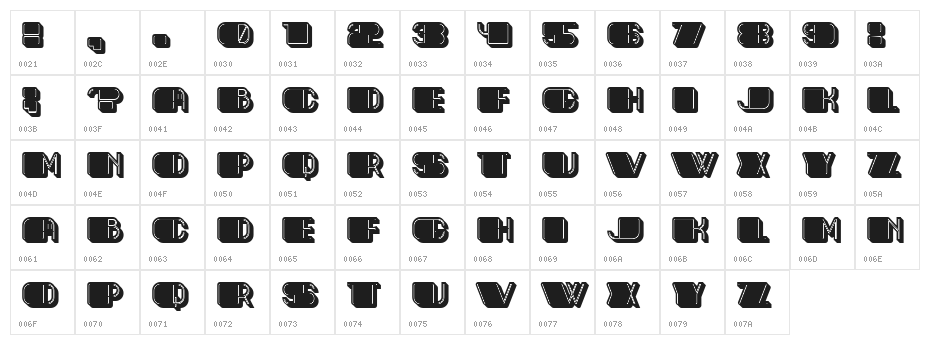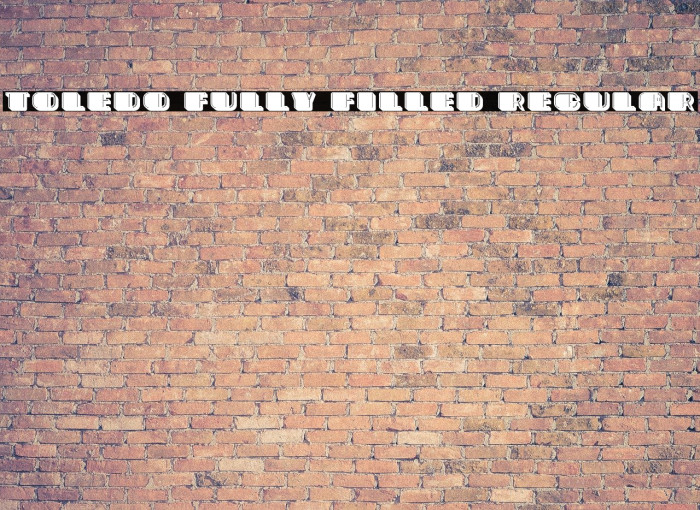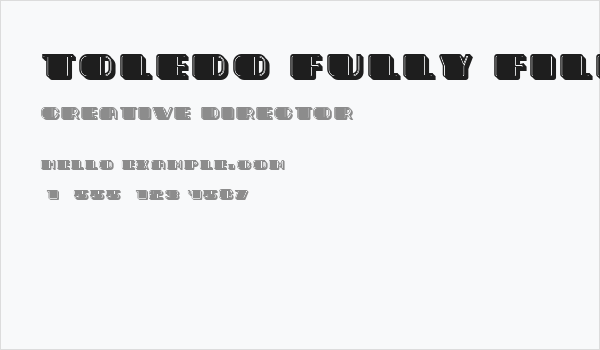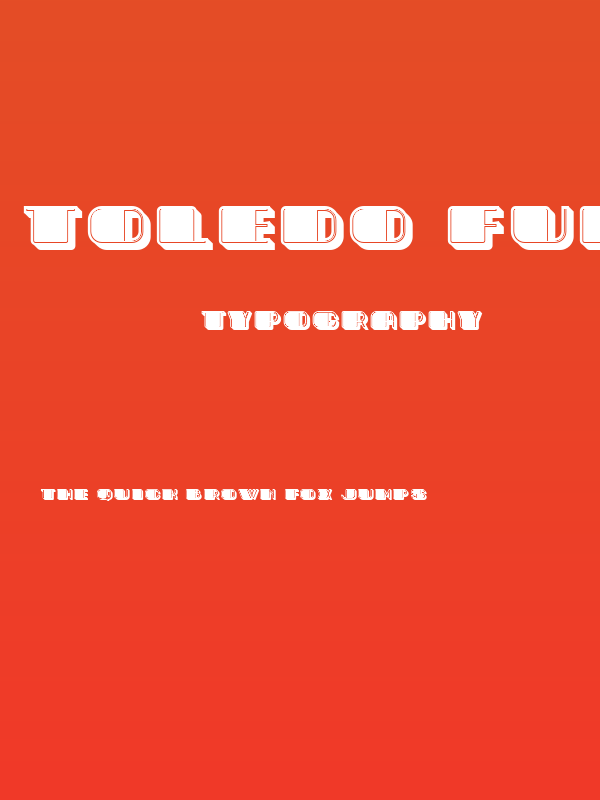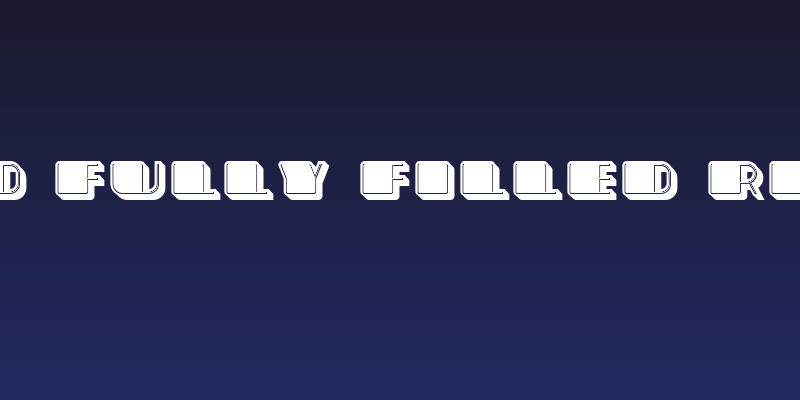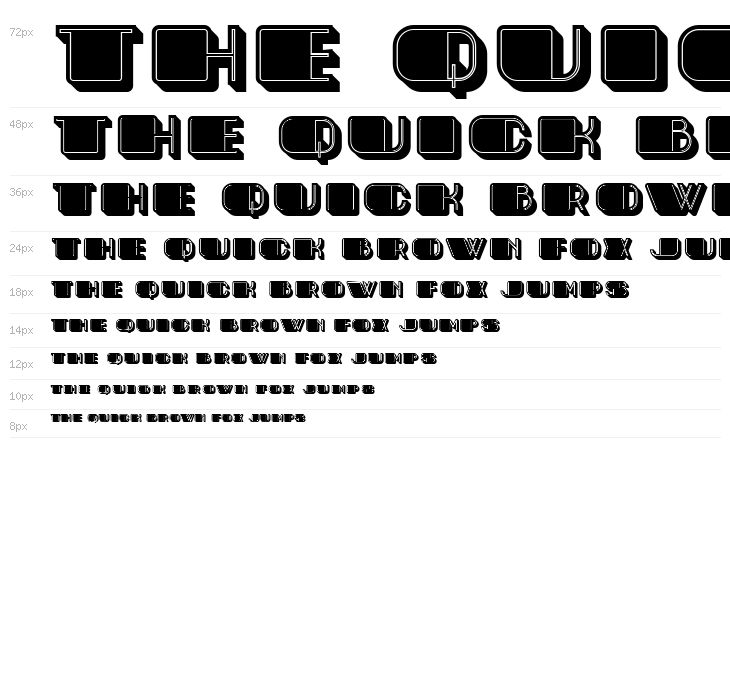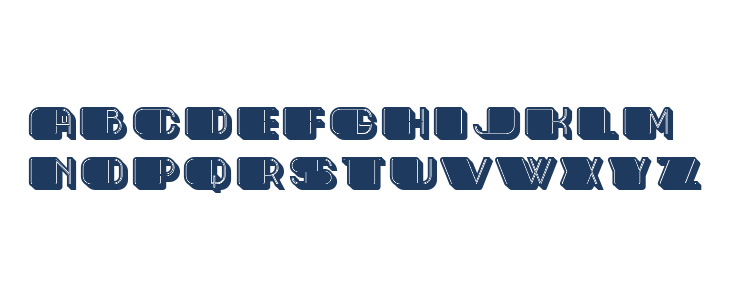
Toledo Fully Filled Regular Font
Toledo Fully Filled Regular Description
This font features a bold, geometric style with fully filled characters that have a distinct, blocky appearance. The letters are uniformly thick, creating a strong visual impact. The edges are rounded, giving a modern and approachable feel. The characters are tightly spaced, enhancing the compact and cohesive look. This font is ideal for making a statement, with its high contrast and bold presence. The numbers and special characters maintain the same stylistic elements, ensuring consistency across all text elements.
| Proposed Projects | Ideal for branding, posters, headlines, and any design requiring a strong, modern aesthetic. |